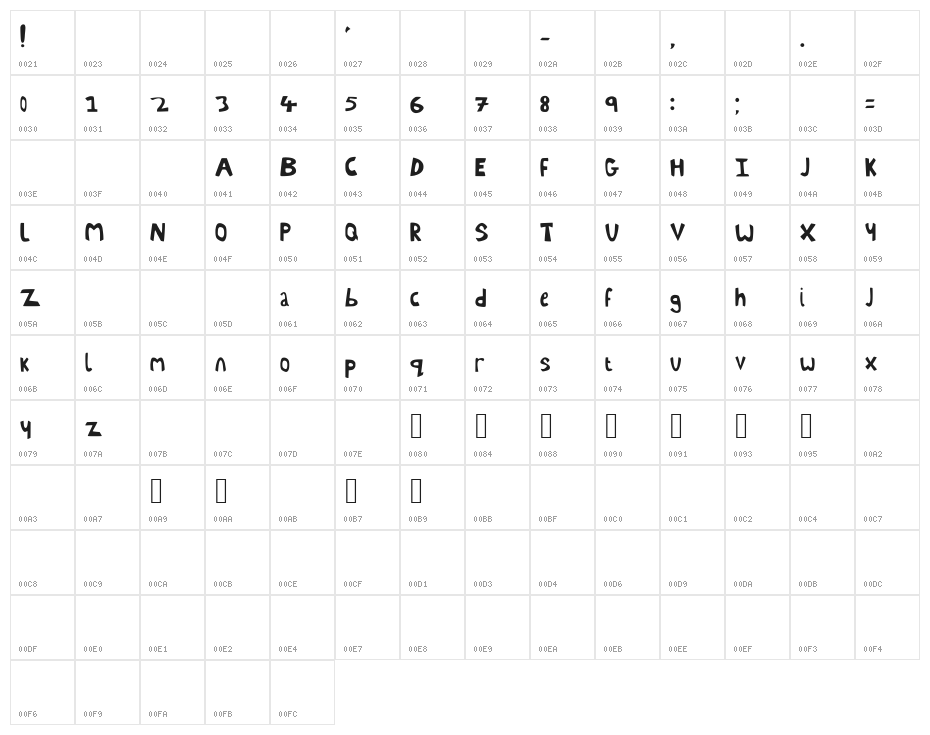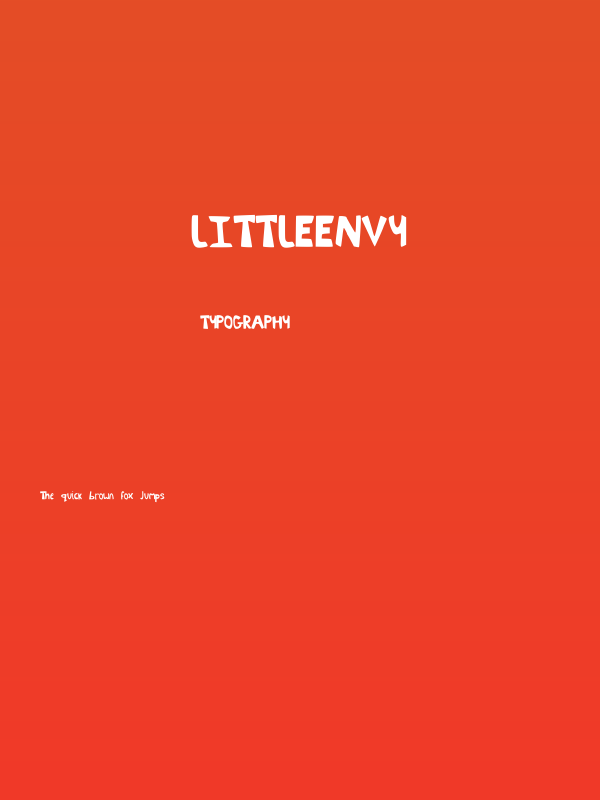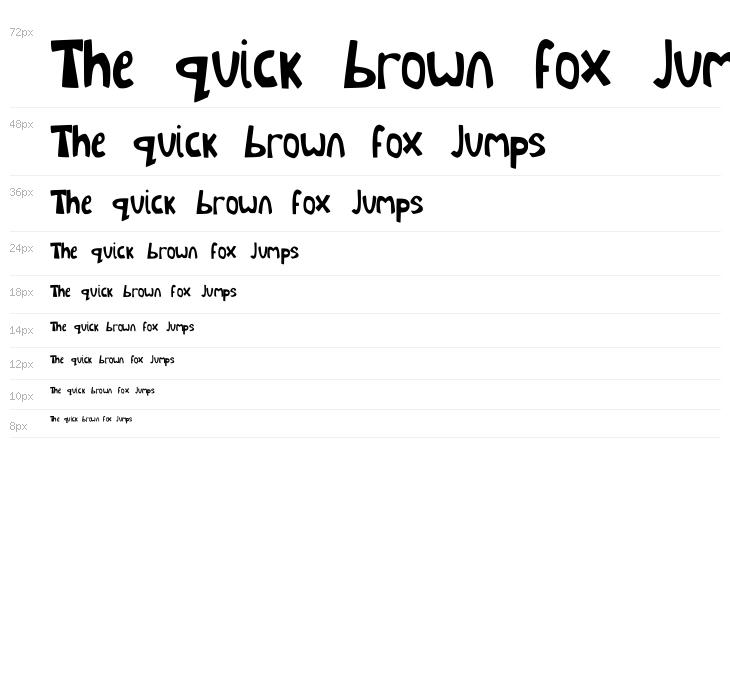
LittleEnvy Font
LittleEnvy Description
This playful and bold font features a unique, hand-drawn style with irregular shapes and a whimsical flair. The characters are slightly uneven, giving it a casual and friendly appearance. The uppercase letters are bold and prominent, while the lowercase letters maintain a consistent style with a slightly more relaxed form. The numbers and special characters follow the same playful design, making the font suitable for creative and informal projects. Its distinct style is eye-catching and memorable, perfect for adding a touch of personality to any design.
| Categories | Cartoon |
| Overall Style | Playful, Whimsical |
| Proposed Projects | Ideal for children's books, playful branding, posters, and creative invitations. |